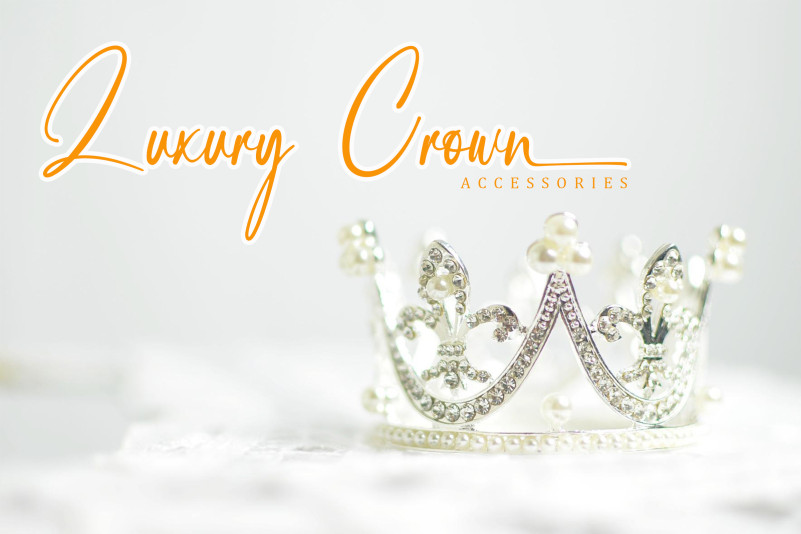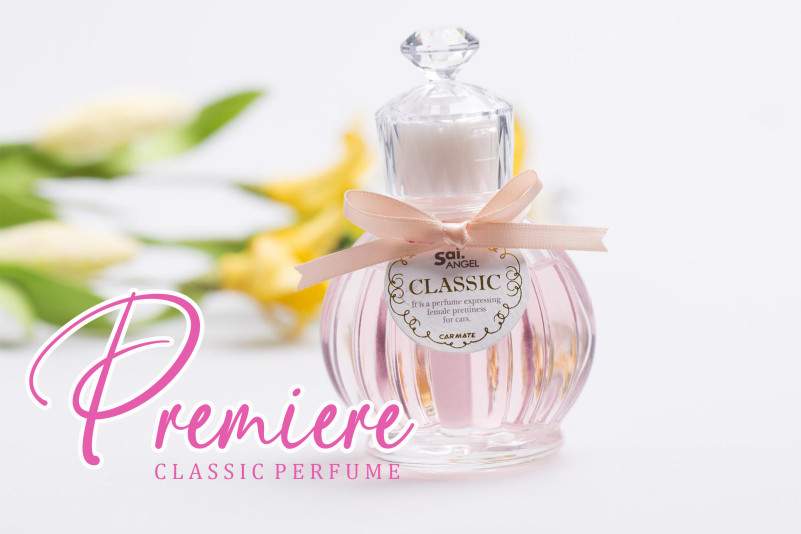
Signatura Font
Signatura Handwritten Font is an elegant signature font, that features a very delicate and classy look. This font is perfect for designing t-shirts, invitations, magazines, greeting cards, and more. This font is also PUA encoded which means you can access all of the glyphs and swashes with ease!